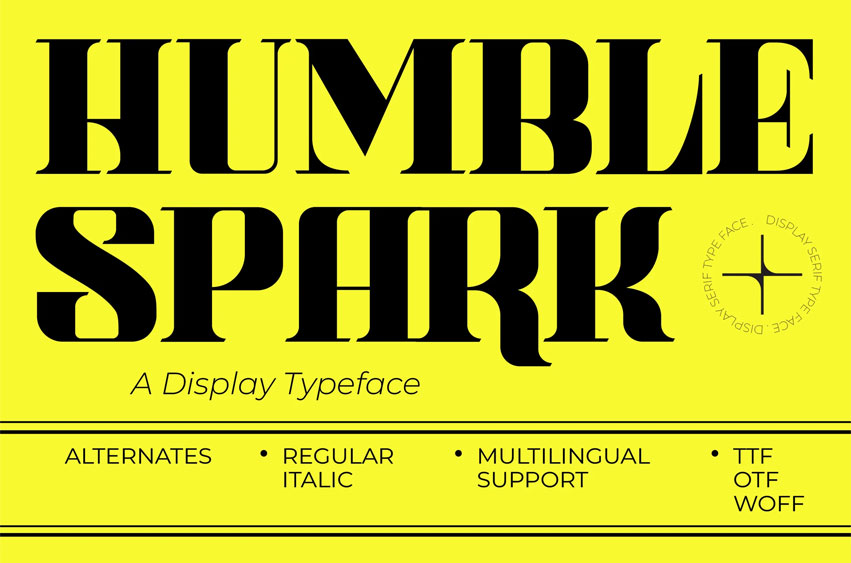
Humble Spark Font
Humble Spark Font is a Display Serif Typeface with Refined Character For a typeface that blends classic charm with a modern twist? Meet Humble Spark, a meticulously crafted display serif font designed to bring understated elegance and timeless beauty to your design projects.
With its graceful serifs and harmonious proportions, Humble Spark offers a soft yet confident voice—perfect for sophisticated branding, high-end packaging, and elegant editorial layouts.
• Elegant Serif Style – A graceful design with a warm, contemporary tone
• Refined Contrast – Balanced stroke weight for clarity and elegance
• Multilingual Support – Includes extensive international characters
• Versatile & Optimized – Crisp performance in both digital and print media
Designed by Hilman, Humble Spark infuses your typography with elegant warmth, striking the perfect balance between vintage inspiration and modern design sensibility.